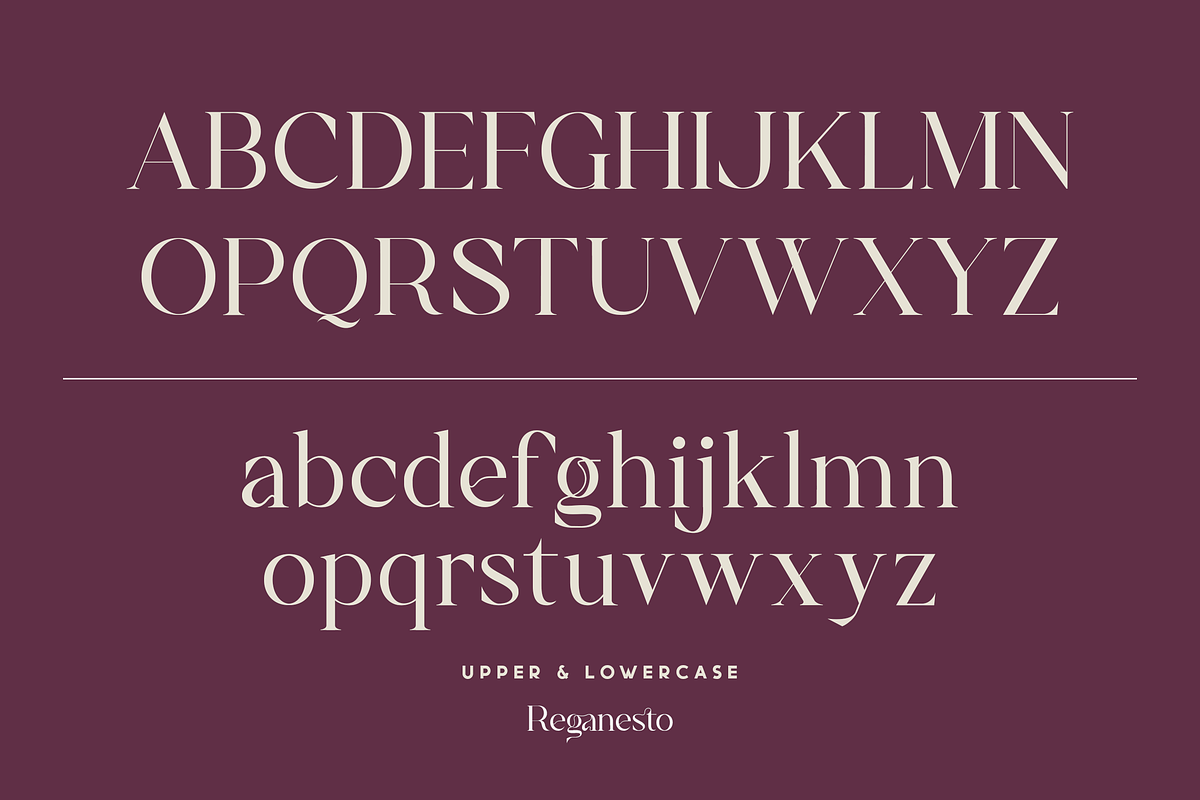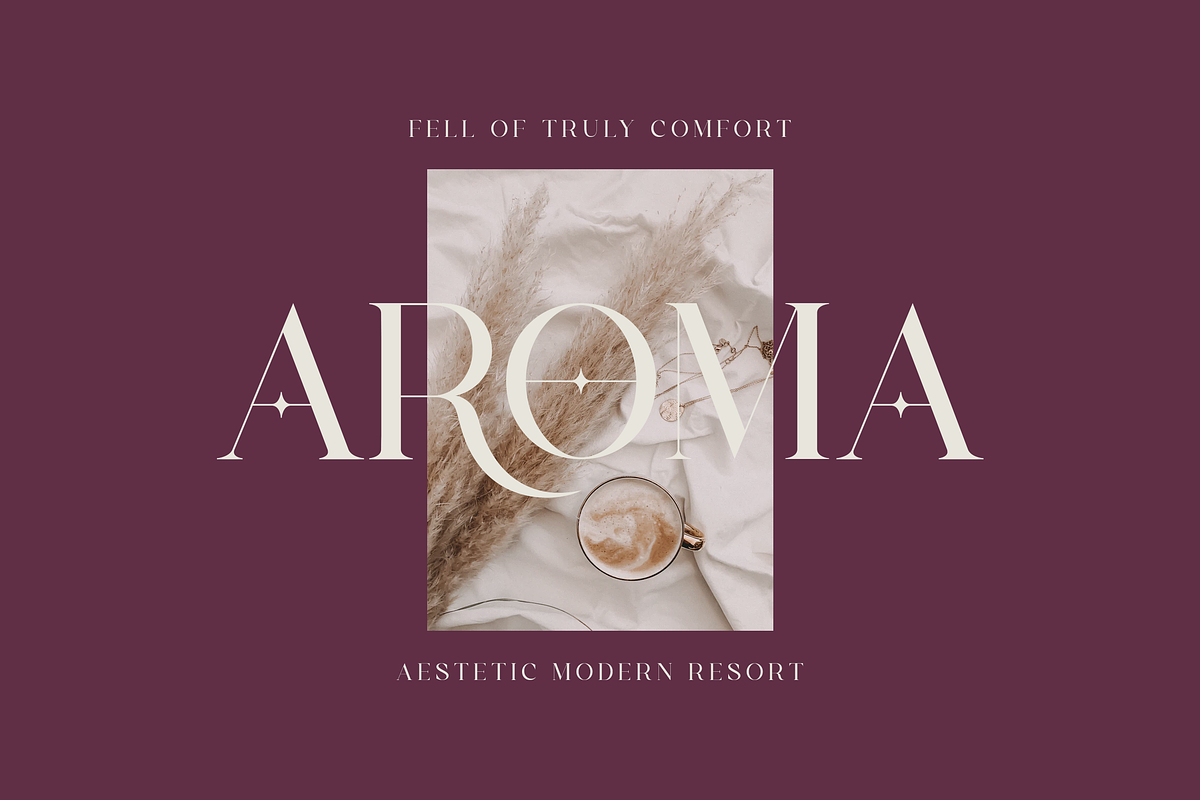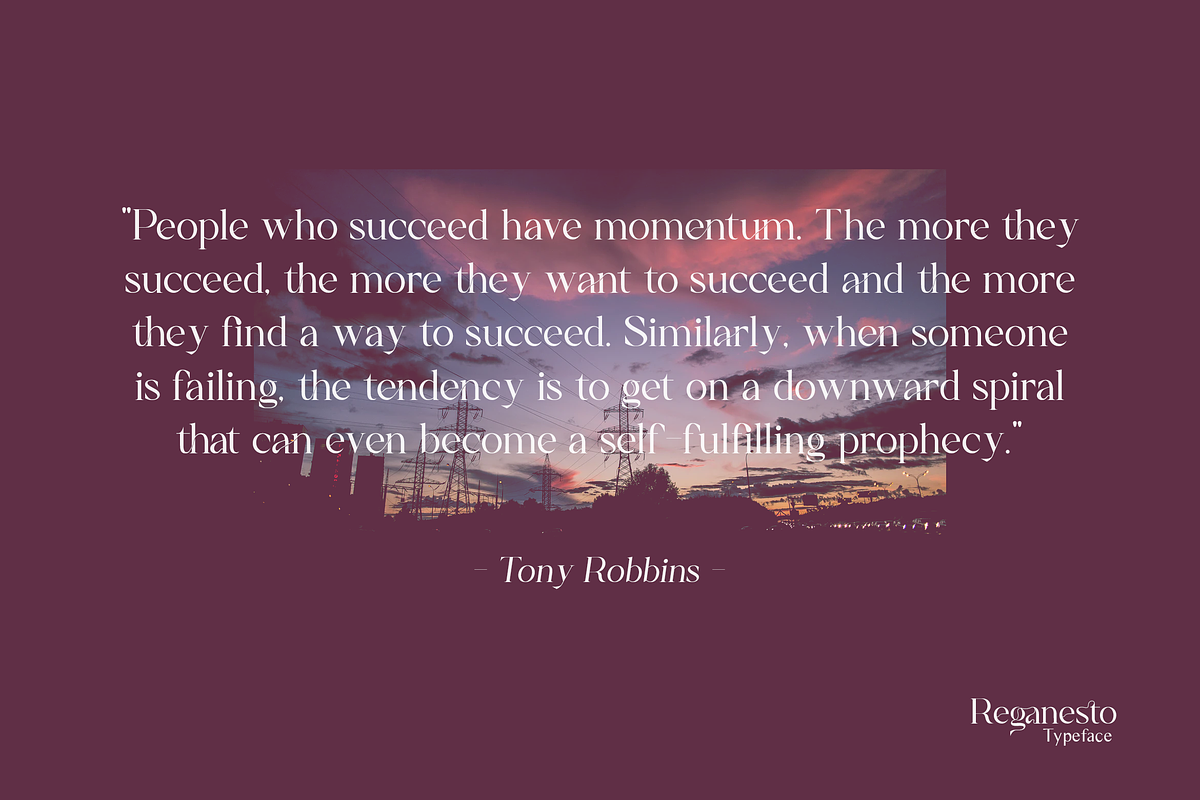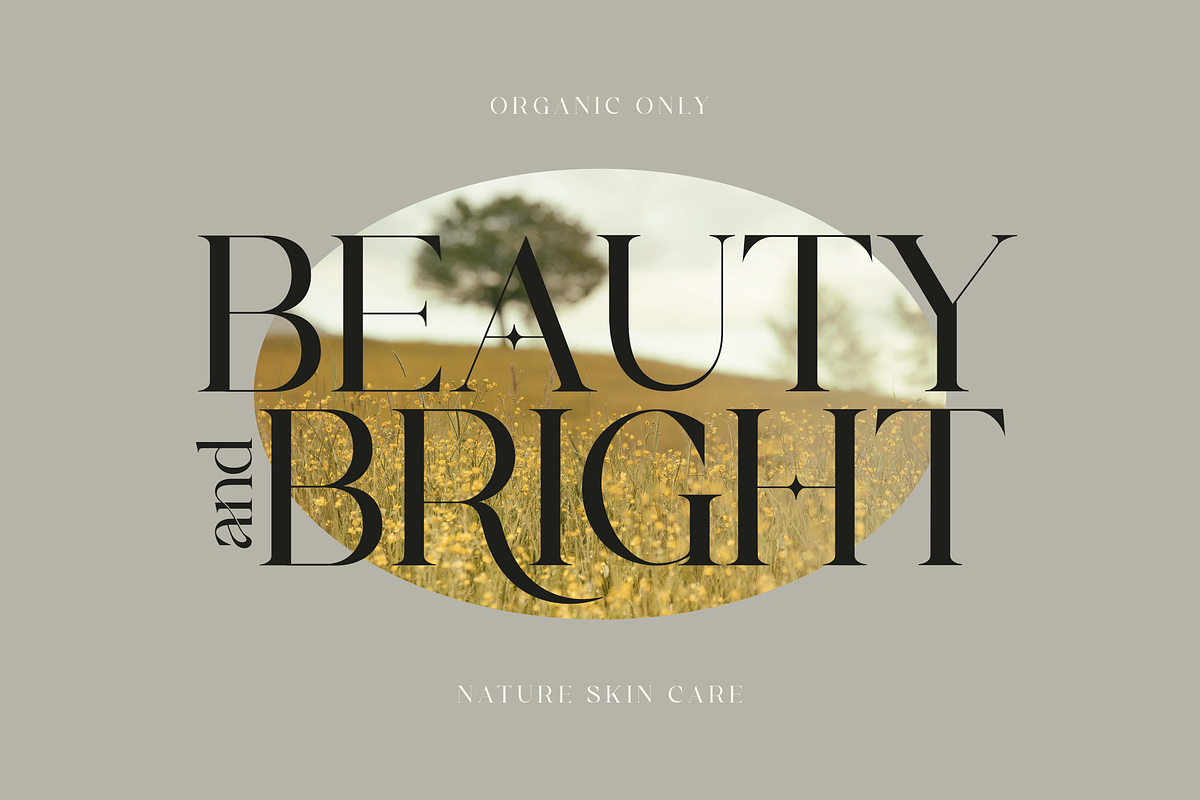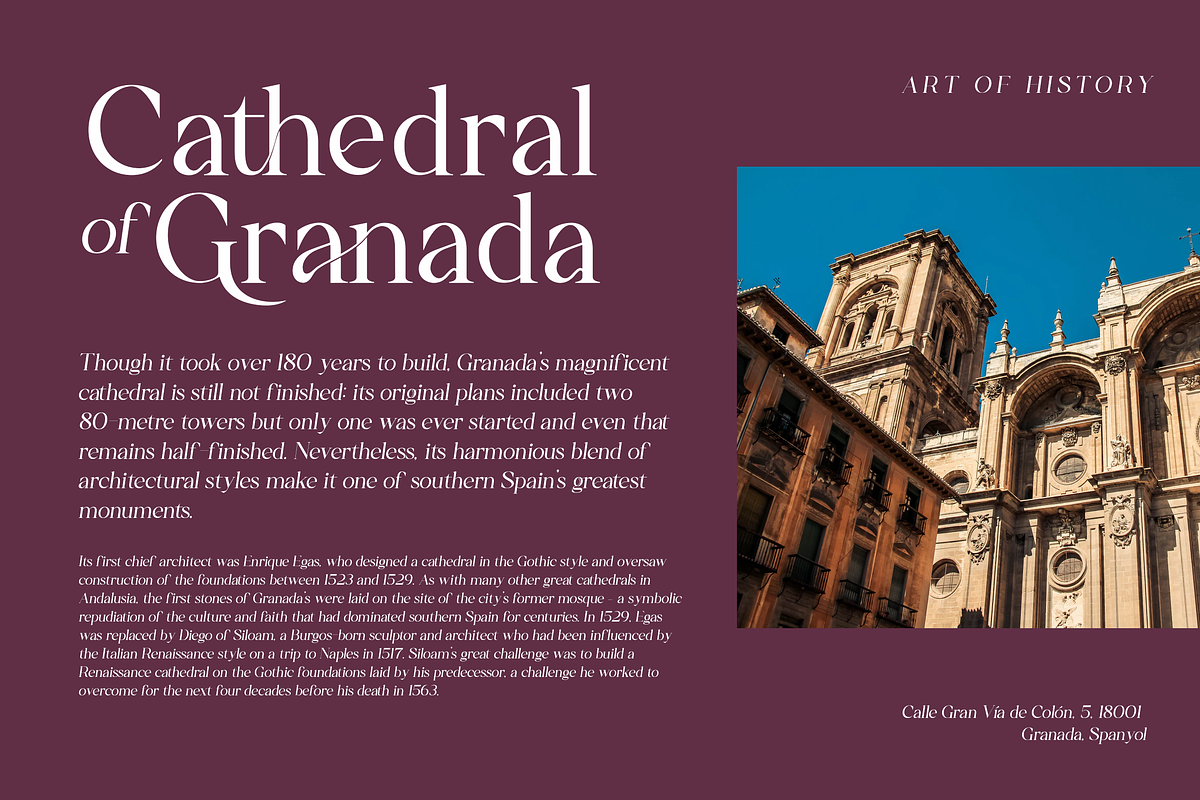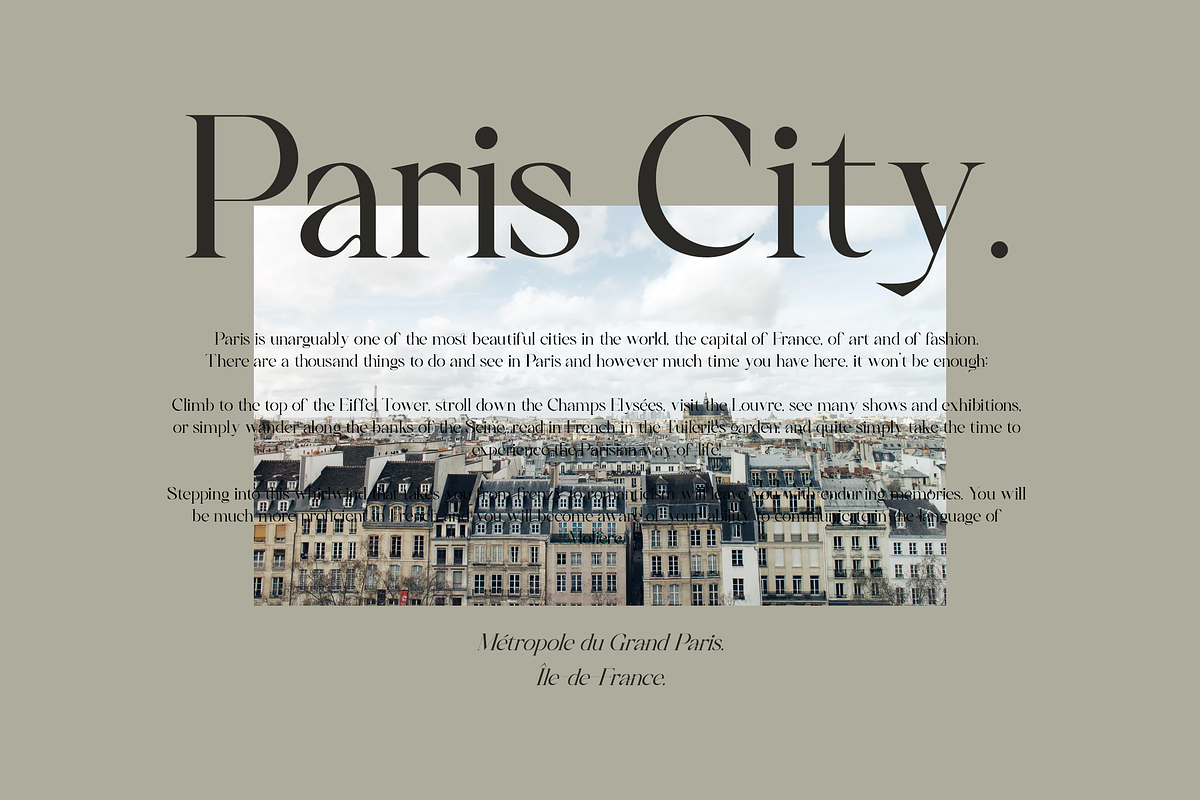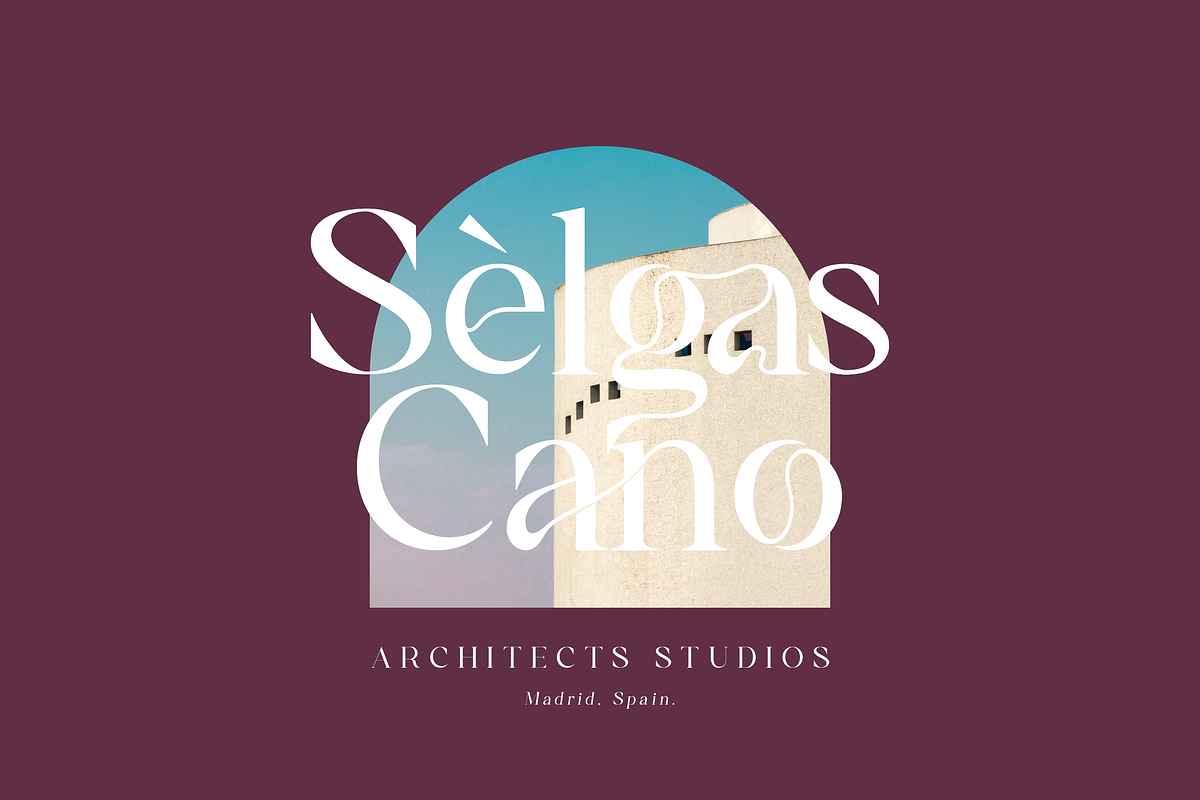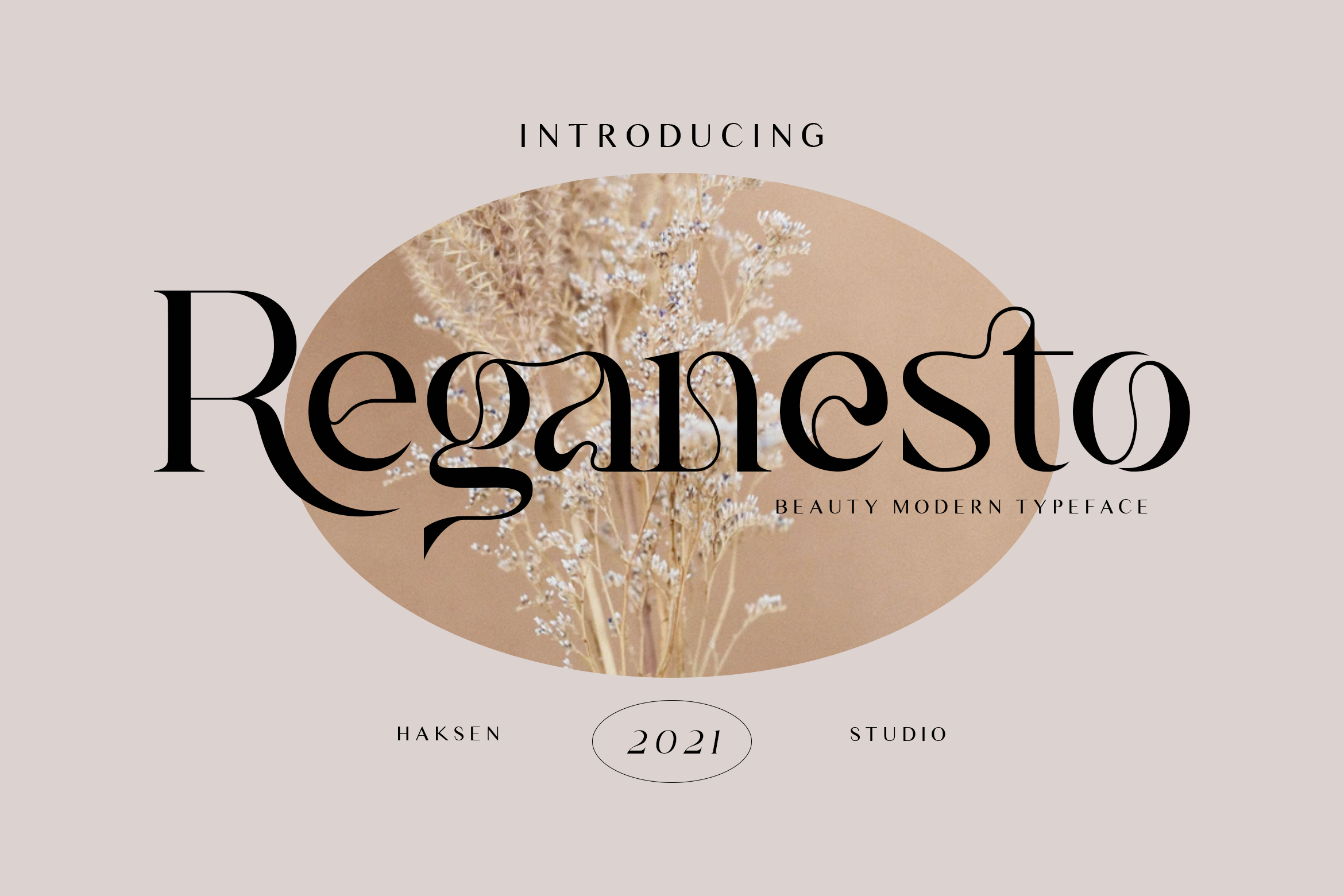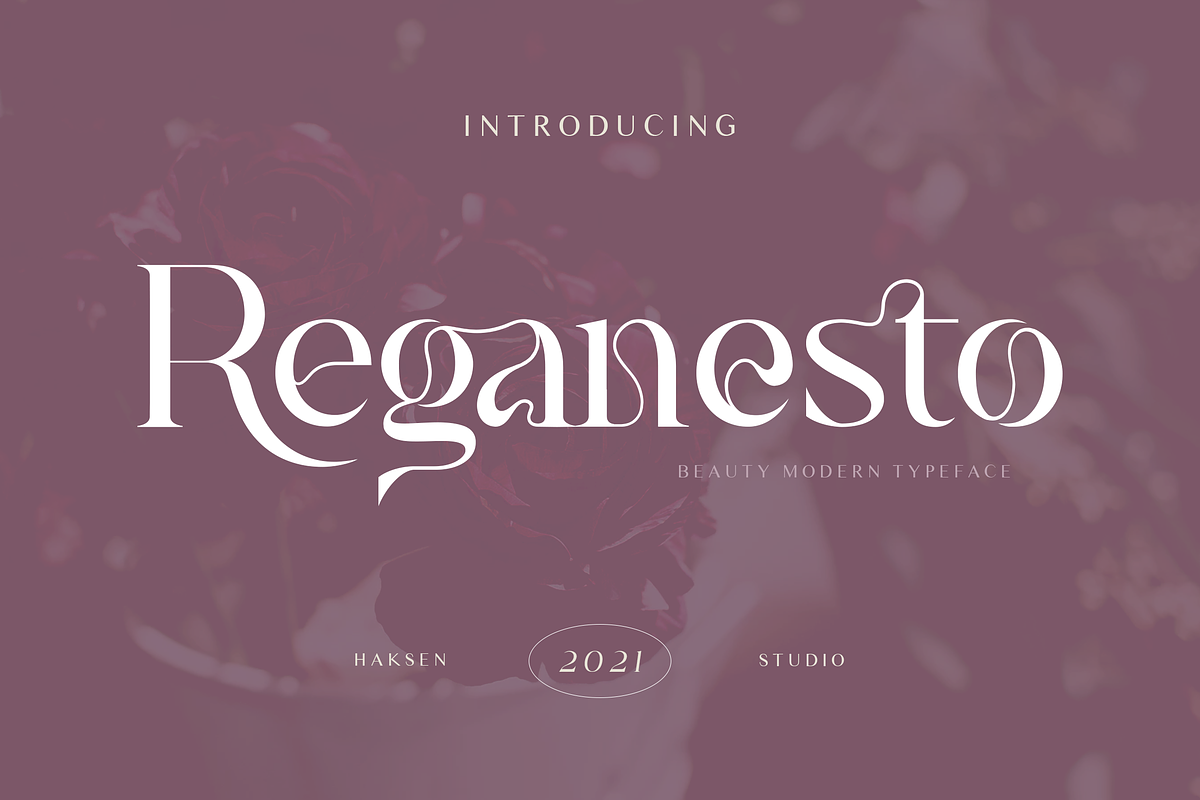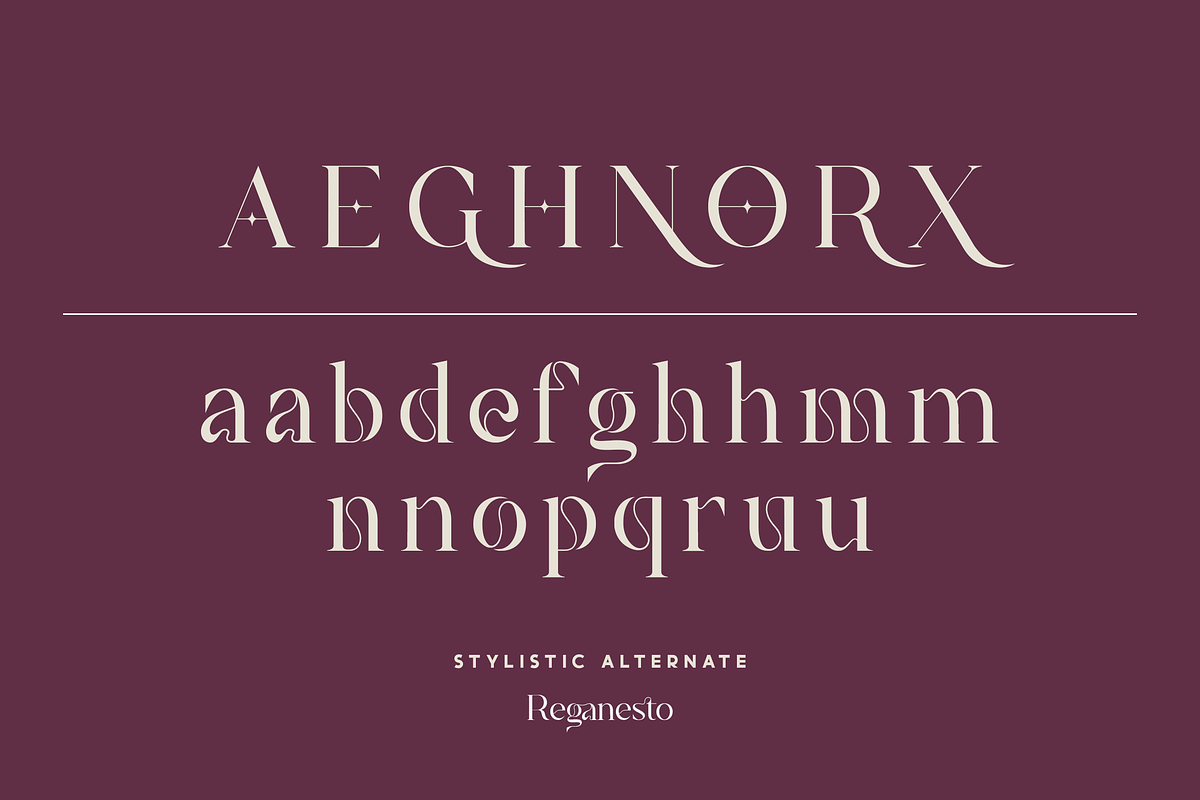
Reganesto - Modern Serif Typeface
Reganesto are the modern serif display style with Uppercase and Lowercase feel nice balanced and looks incredible. Honestly it works perfectly for headlines, logos, posters, packaging, T-shirts and much more.
- Regular and Italic version
- Character set A-Z in uppercase and lowercase
- Accented Characters
- Multiple Languages Supported